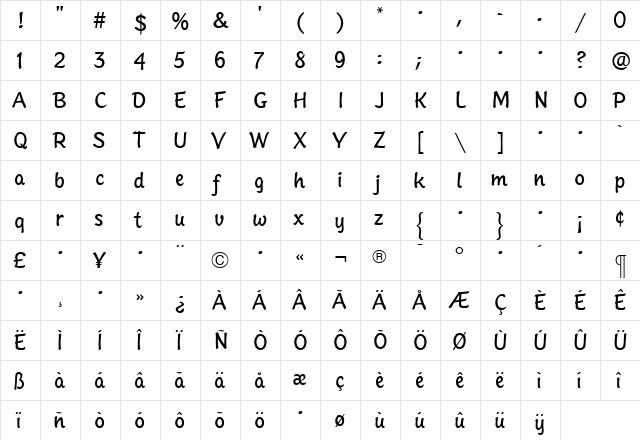
SinclairLightScript Roman Font Preview
Design Context for SinclairLightScript Typeface
SinclairLightScript brings a calligraphic fluidity to the page — its connecting strokes and expressive curves give it an unmistakably human quality. Its slender proportions lend an understated elegance to any composition.